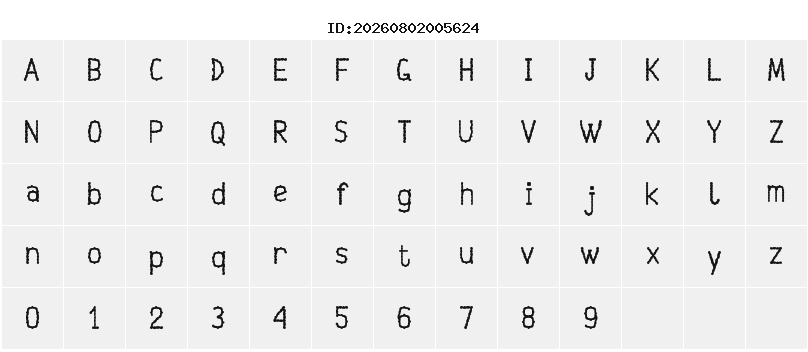
• Font Name: Mayuragifkas150
• Full Font Name: Mayuragifkas150
• Designer: Lab-room for viper78 Clerical Office - viper78 aka Vlad Viperov, Volgograd 2015
• Description: Decorative Exotic fonts for use in all places
About Mayuragifkas150.ttf
Mayuragifkas150.ttf is a modern, elegant sans-serif font designed for ultimate readability and visual harmony. Perfect for branding, headlines, web design, and print materials.